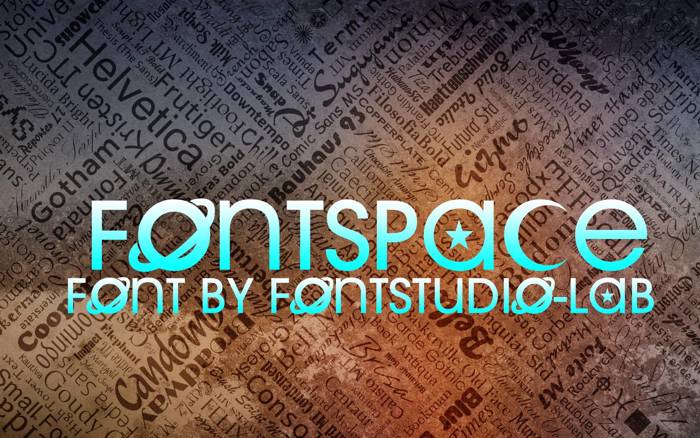
Fontspace Font
Aquí les presento la fuente antigua de 'Fontspace'.
4 years agoO is Saturn
4 years agoA has a star inside the circle A
4 years agoAnd C is a moon
2 years agoThis is just “Aventura Grande” but space themed
Looks cool!